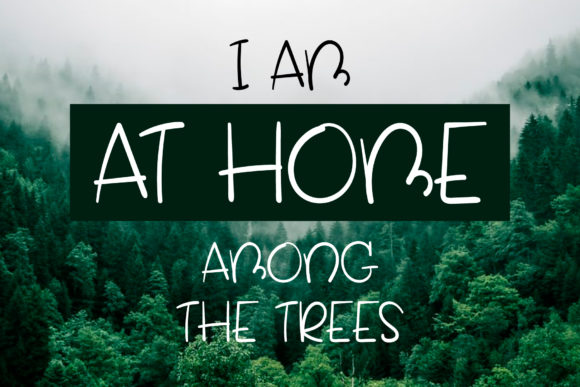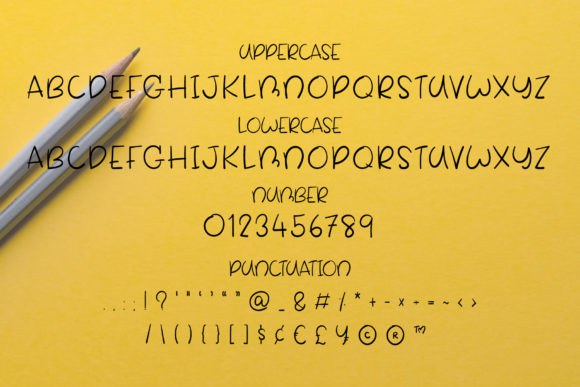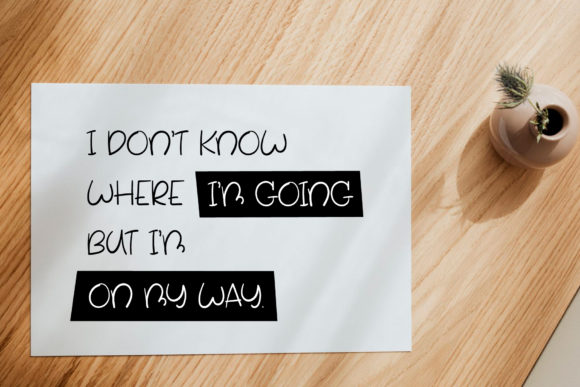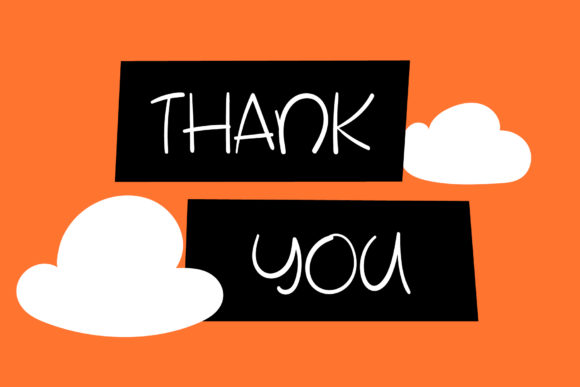
White Duck Font
About White Duck Font
White Duck is a timeless handwritten font. It features an incredibly classic style, while still keeping a friendly feel. White Duck is the perfect font for making original and outstanding designs.